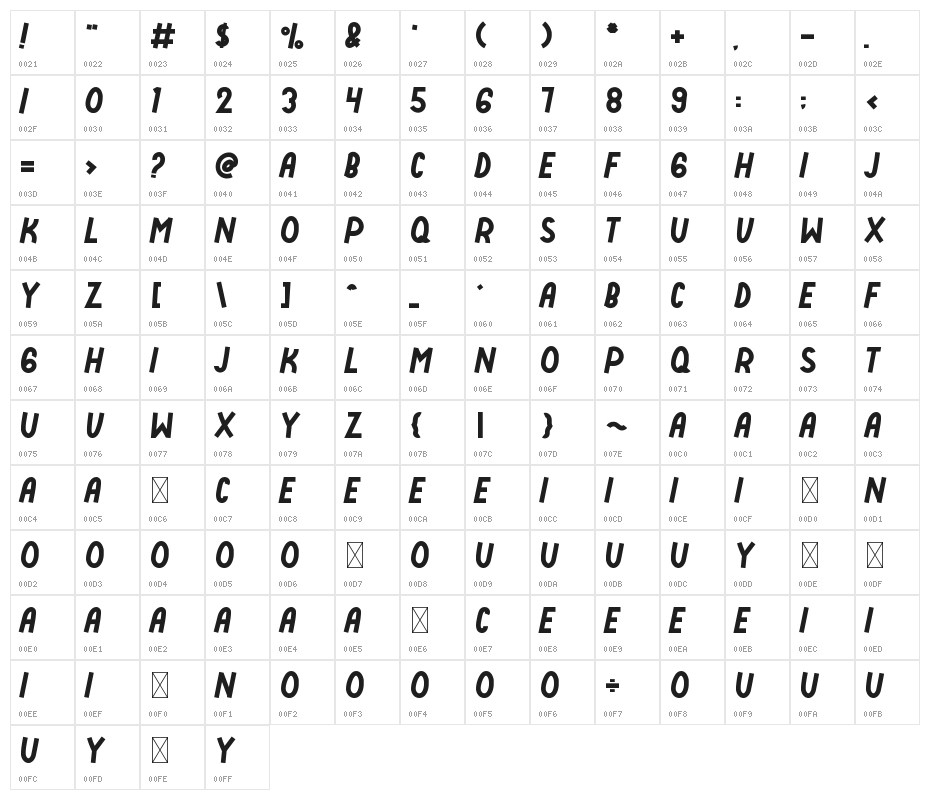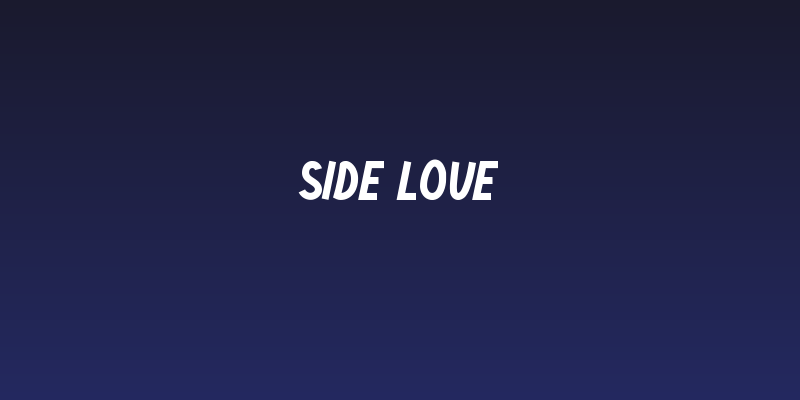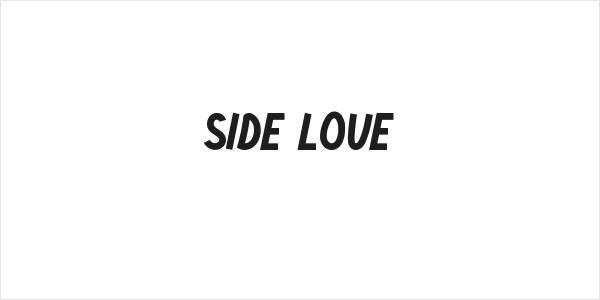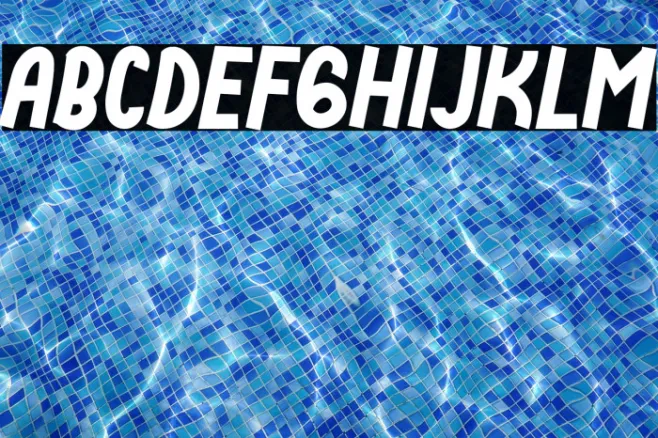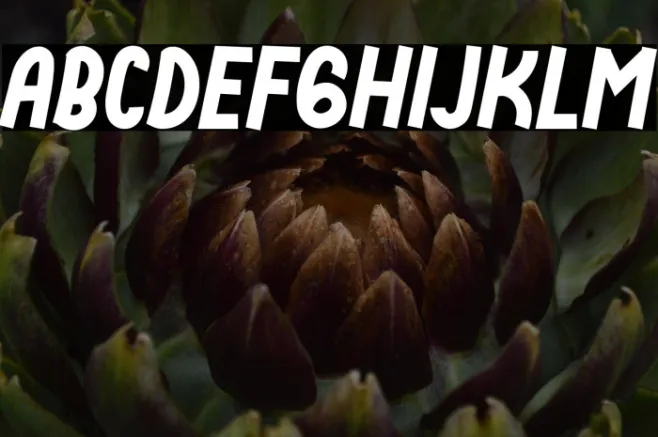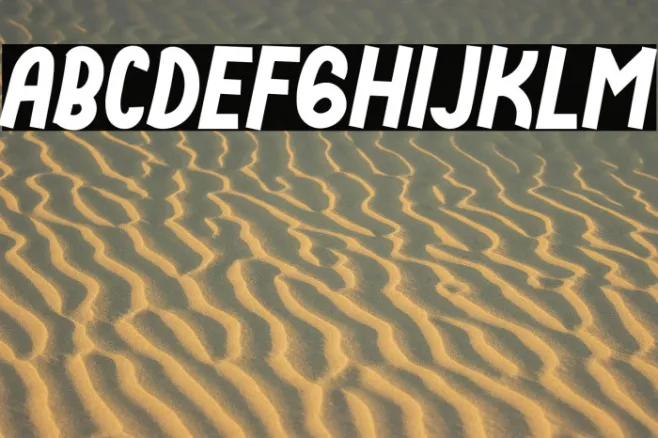
Side Love Font
Side Love Description
This font features a bold and dynamic style with a slight forward slant, giving it a sense of movement and energy. The characters are thick and rounded, providing a friendly and approachable appearance. The uppercase and lowercase letters maintain a consistent weight, ensuring readability and uniformity across different text sizes. The numerals and special characters are designed to match the overall aesthetic, with a playful yet structured form. This font's unique style makes it suitable for projects that require a lively and engaging typeface.